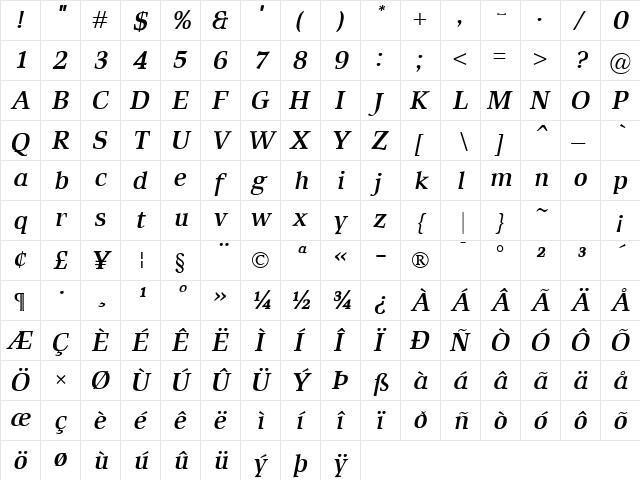
Rustika BoldItalic
Design Context for Rustika Typeface
Rustika takes a measured approach to typography — its balanced proportions and neutral character make it a reliable workhorse for both digital and print work. The slanted form adds forward momentum and visual energy. The heavy weight commands attention and anchors typographic hierarchies.
Pro Tip: Use Rustika for emphasis, pull quotes, and subheadings where its slanted energy can add rhythm to the layout.